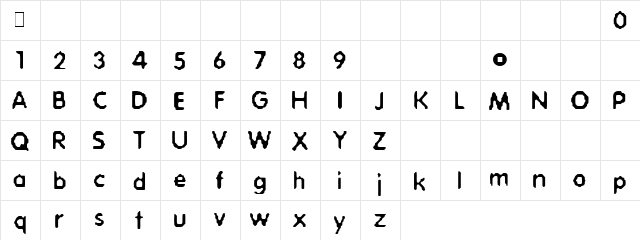
Bolt Papaer Regular
Design Context for Bolt Papaer Typeface
Bolt Papaer takes a measured approach to typography — its balanced proportions and neutral character make it a reliable workhorse for both digital and print work.